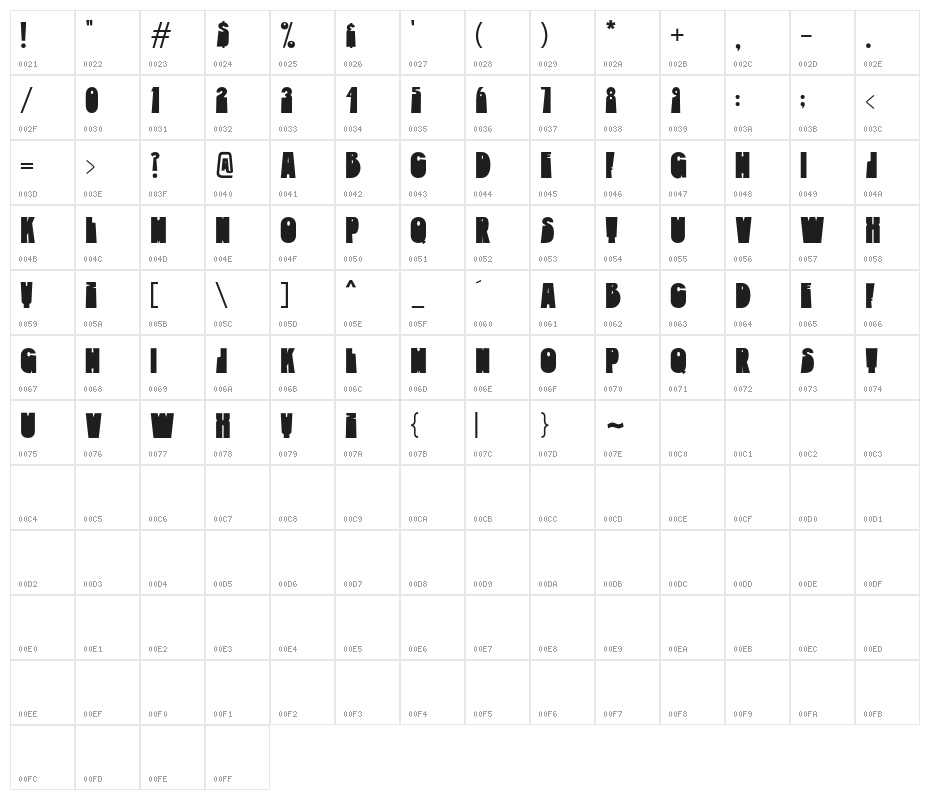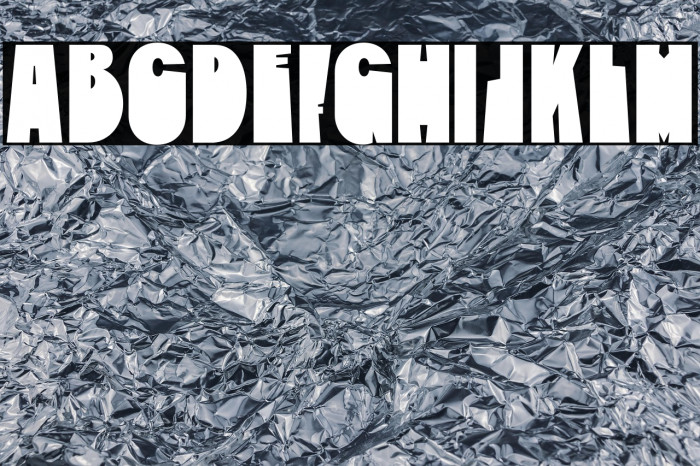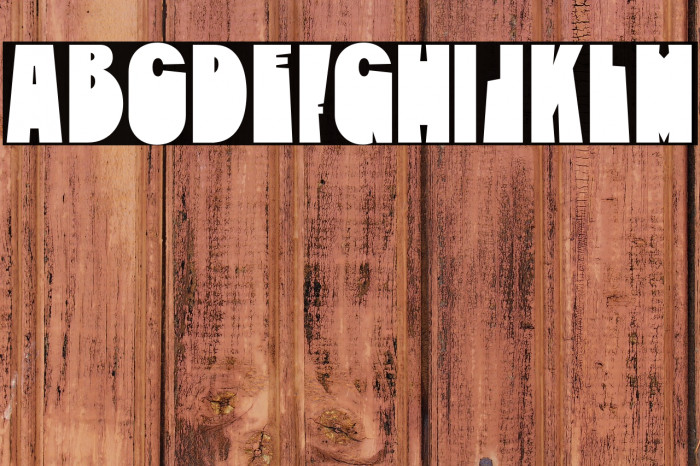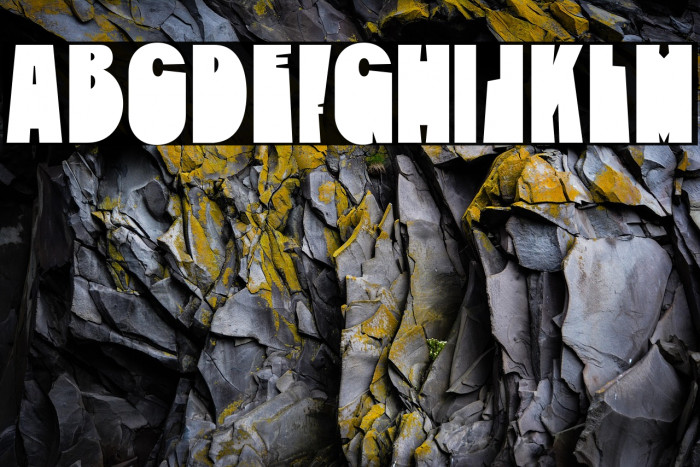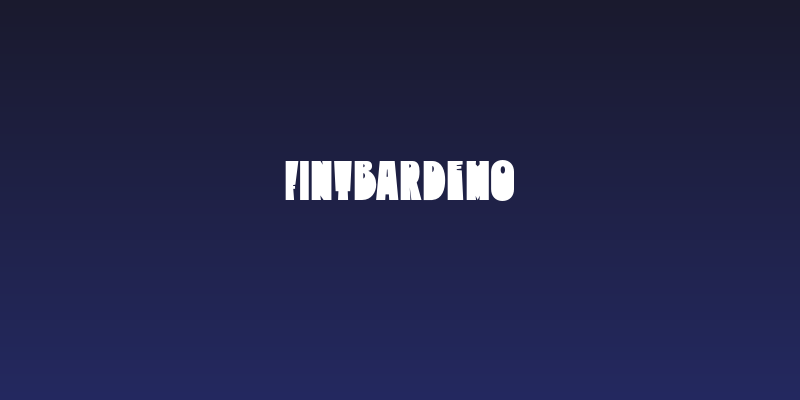
FintbarDemo Font
FintbarDemo Description
This font features a bold and striking design with exaggerated, blocky characters that create a strong visual impact. The letters are heavily stylized with unique cutouts and angles, giving them a playful yet commanding presence. The uppercase and lowercase letters maintain a consistent width, while the numbers and special characters follow the same bold aesthetic. The font's design is reminiscent of vintage poster typography, making it ideal for eye-catching headlines and display purposes.
| Overall Style | Vintage |
| Proposed Projects | Perfect for posters, logos, and any project needing a bold, attention-grabbing typeface. |